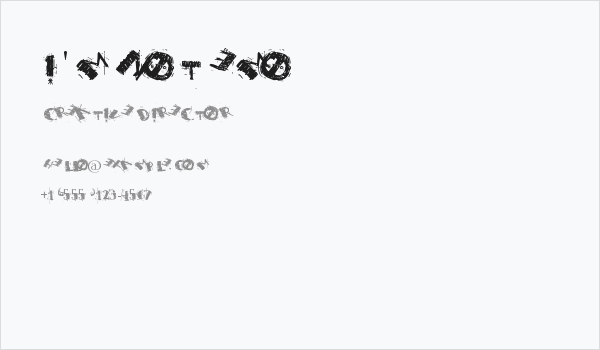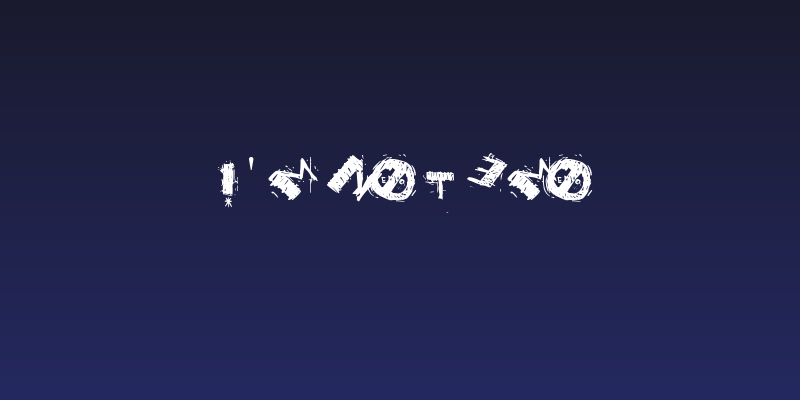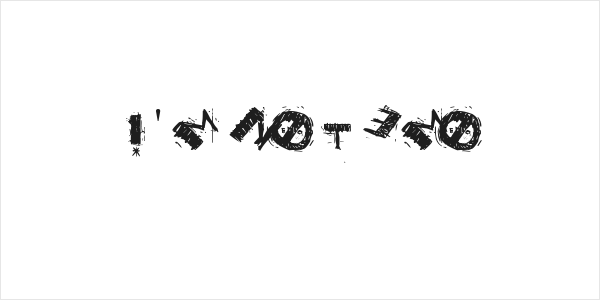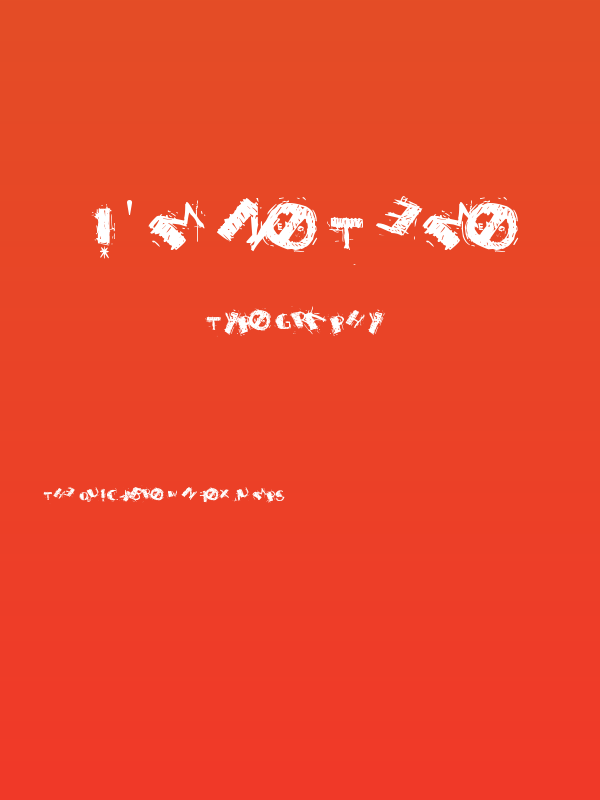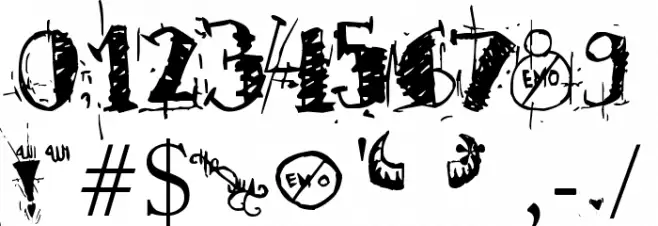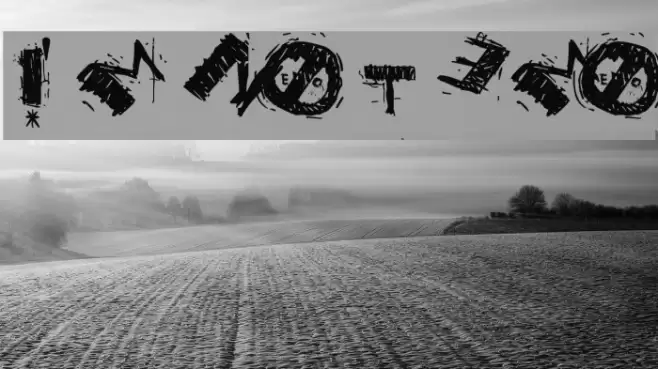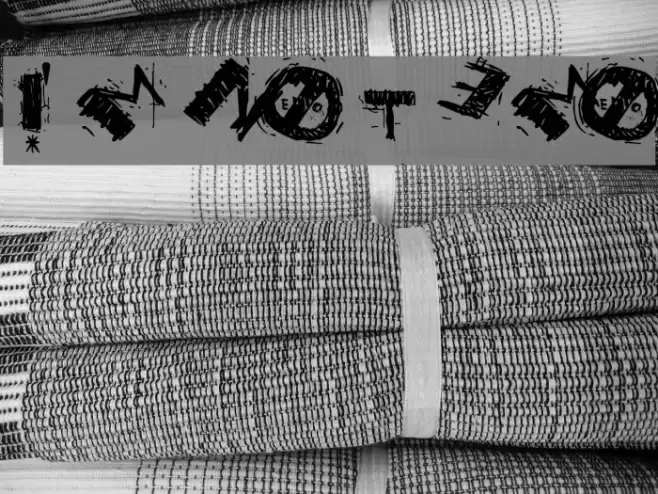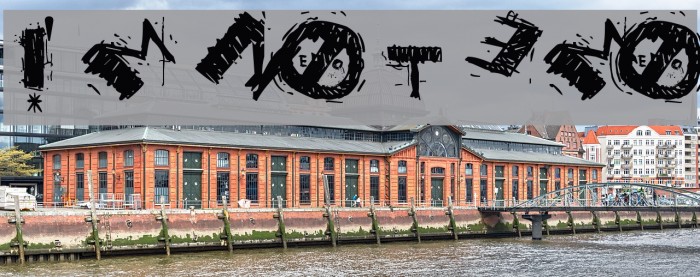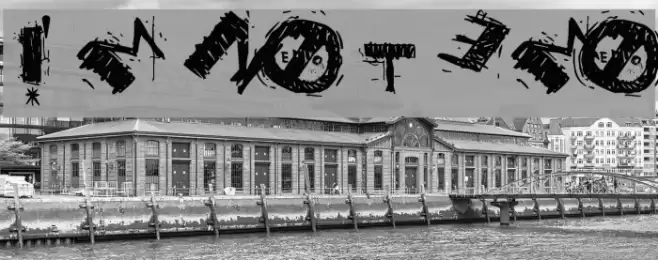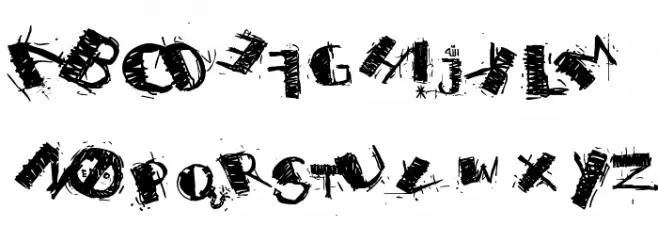
I'M NOT EMO Font
I'M NOT EMO Description
This font features a grungy, distressed style with a chaotic and edgy appearance. The characters are heavily textured with rough, uneven edges, giving them a rebellious and raw aesthetic. Each letter and number appears as if it has been scratched or painted with a brush, adding to its rugged and unconventional look. The font includes uppercase and lowercase letters, numbers, and a variety of special characters, all maintaining the same distressed theme. This font is ideal for projects that require a bold, eye-catching design with a touch of anarchy.
| Overall Style | Grunge, Edgy, Rebellious |
| Proposed Projects | Album covers, posters, streetwear branding, skateboarding graphics, and rebellious-themed designs. |